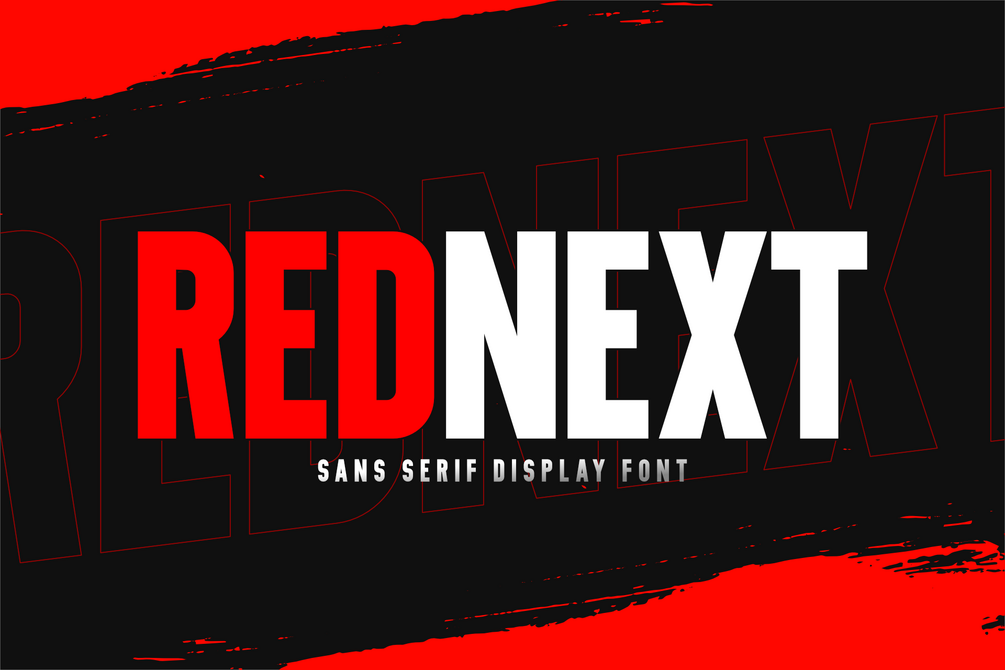
Rednext Font
Rednext is a strong display font and come with bold letter. it’s sturdy uncompromising style is felt through the controlled letterforms and modern touches. A balance of hard lines and smooth curves.